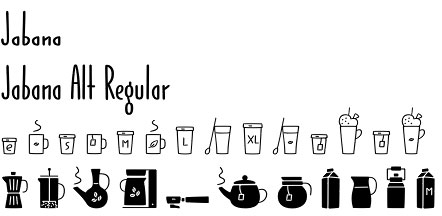
Jabana font collection
In 2014 Jabana was released as just a single font. One year later, after some hard work Nils Thomsen rounded it up to a very useful and complex typeface system (enjoy the beautiful presentation of Jabana font collection in PDF).
Jabana is Inspired by having a Schorle at Hamburgs bars. Super compressed to extended letter shapes in 5 widths and 4 weights – smooth handwritten marker curves and especially a wide range of opentype features define the large character set of Jabana.
This year Nils added a normalized alternate version Jabana Alt, which come along with standardized proportions to get it much more readable.
Additional Jabana Extras makes the super family very interesting for fast and elegant flyer or poster designs.
First to mention are the 250 individual Coffee Bar Icons. You’ll find ‘take-away cups‘ in different sizes, beer bottles, cocktails, snacks and more you need for serious tea parties. And the Web and App Icons promise to be useful for what they are meant for.
To highlight Jabana Nils created Ornaments, Banners, Arrows and special Dividers. You rarely saw this before because there is something specific about it: They are all flexible in length and style by just typing from A-Z (OpenType). Try it, learn it and Nils augur you will love it!